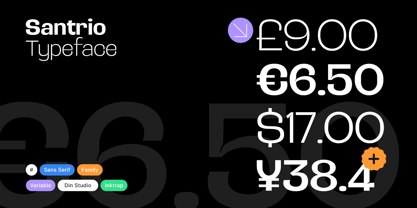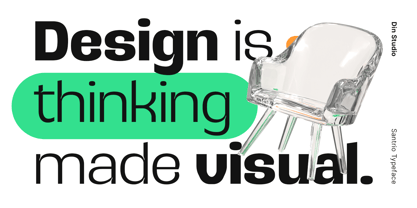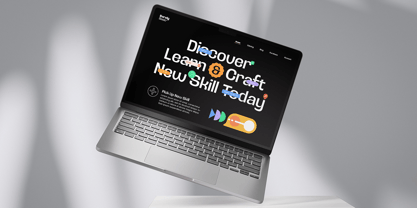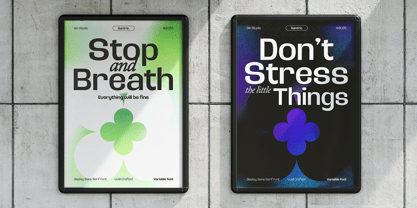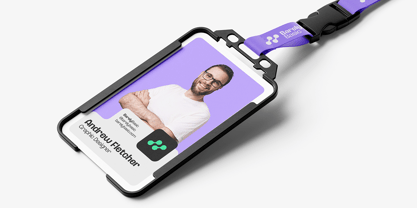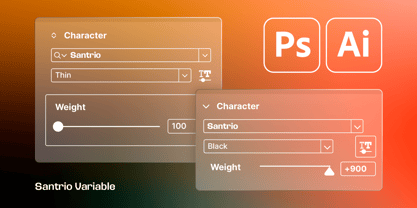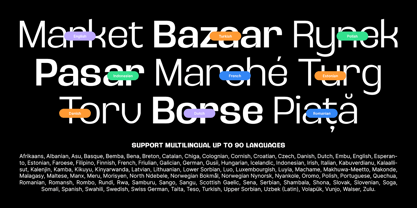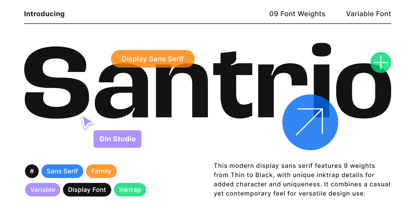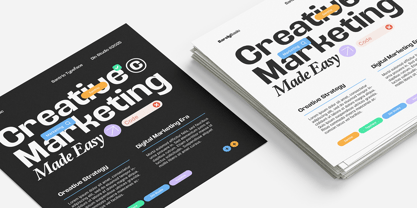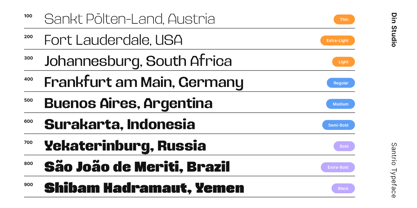
Santrio
Die Schriftfamilie Santrio wurde von Donis Miftahudin entworfen und von Din Studio veröffentlicht. Santrio enthält 9 Stile und Familienpaketoptionen. Mehr über diese Familie
Santrio is a modern sans-serif display font that combines simplicity and precision with a touch of uniqueness. Designed with detailed ink traps, this font not only enhances readability but also adds a subtle character to its clean and structured letterforms. With 9 different weights, from Thin to Black, Santrio provides flexibility for a wide range of design needs. Bring a balance of modern minimalism and technical craftsmanship to your designs with Santrio. In addition, enjoy the features here.
Features:
• Multilingual Supports
• PUA Encoded
• Numerals and Punctuations
Santrio fits in logos, branding, editorial design, headlines, posters, digital interfaces and many more designs. Find out more ways to use this font by taking a look at the font preview.